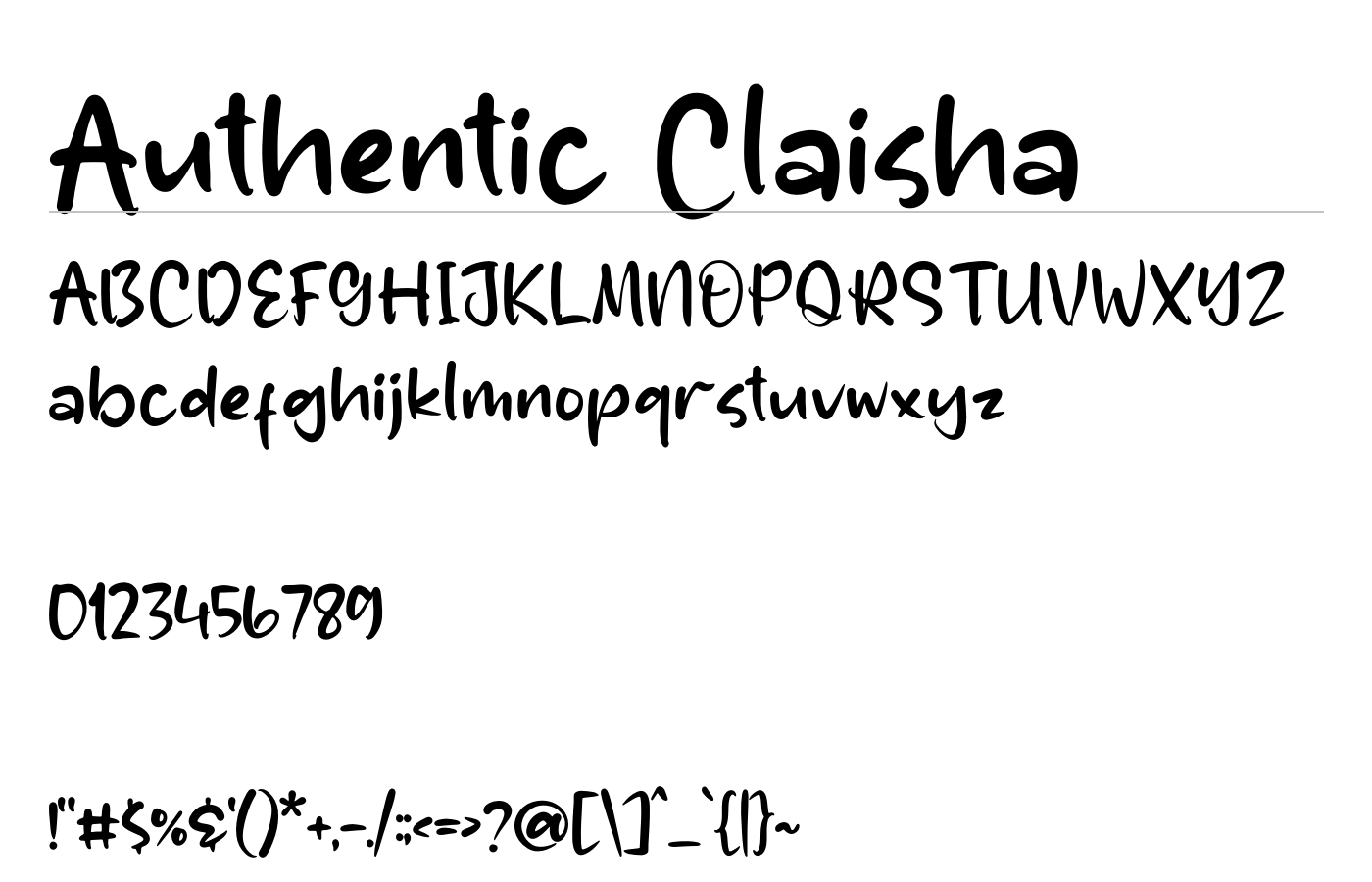
Authentic Claisha is a playful and casual handwritten sans serif font with a warm, approachable feel. Its irregular strokes and slightly uneven letterforms give it a natural, friendly personality that works well for informal branding, creative projects, and personal communications. This font shines in logos, invitations, and social media graphics where a personal and lively touch is desired.
Authentic Claisha Font
About Authentic Claisha Font